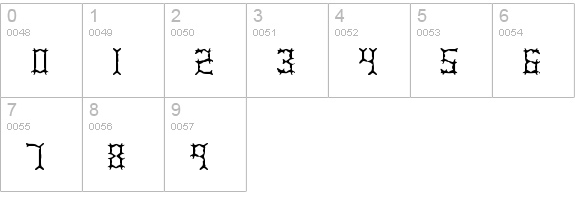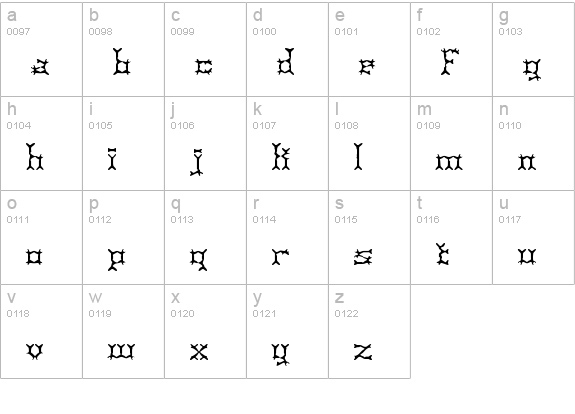
Pincers BRK Font Details
Pincers BRK font is a unique display typeface that exudes a sense of strength and boldness. Its sharp angles and intricate details give it a distinct and powerful look, making it perfect for headlines, logos, and other design projects that require a strong visual impact. The font's pincer-like shapes add a touch of aggression and dynamism, making it stand out from other fonts. Designed by an experienced typographer, Pincers BRK font is crafted with precision and attention to detail, ensuring that every character is beautifully rendered and visually striking. Its versatility allows it to be used in a variety of design contexts, from modern and edgy to vintage and classic. The best part about Pincers BRK font is that it is completely free to download at FontsMarket.com. This means that you can access this stunning typeface without any cost, making it a valuable addition to your font library. Don't miss out on the opportunity to enhance your designs with the powerful and captivating Pincers BRK font.